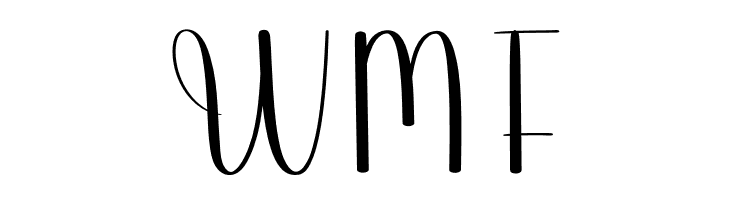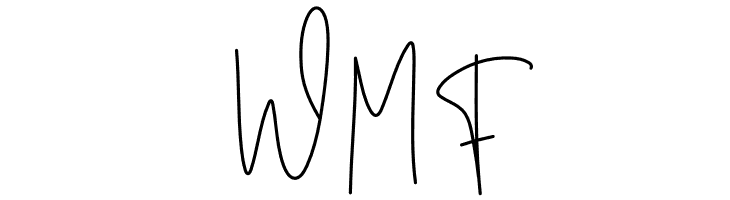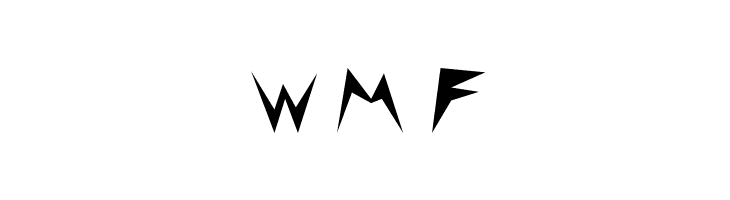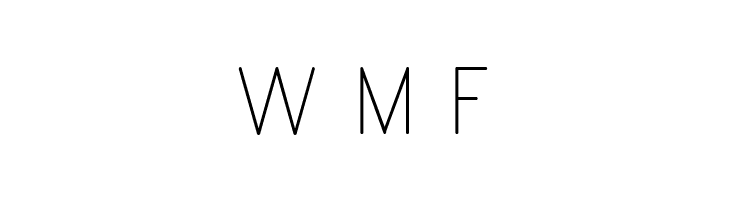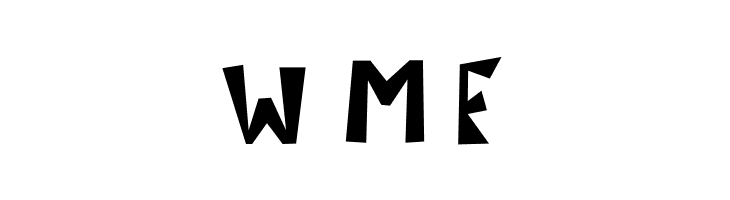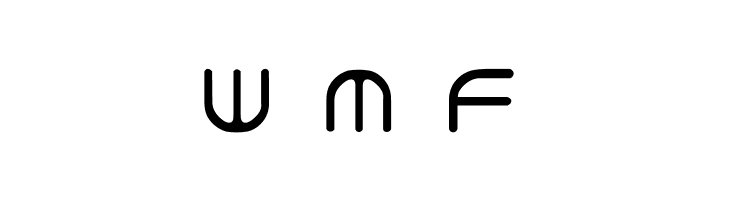
( Fonts by Andi Moz )
Decorative script font with high contrast and flowing lines.
( Fonts by Scratchones )
Playful handwritten font with tall, narrow characters.
( Fonts by singlelinestd )
Minimalist single-line sans-serif with geometric shapes.
( Fonts by Blue Vinyl - Jess Latham - www.bvfonts.com )
A clean, minimalist font with thin, uniform strokes and geometric shapes.
A hand-drawn, sketch-like font with irregular, jagged edges.